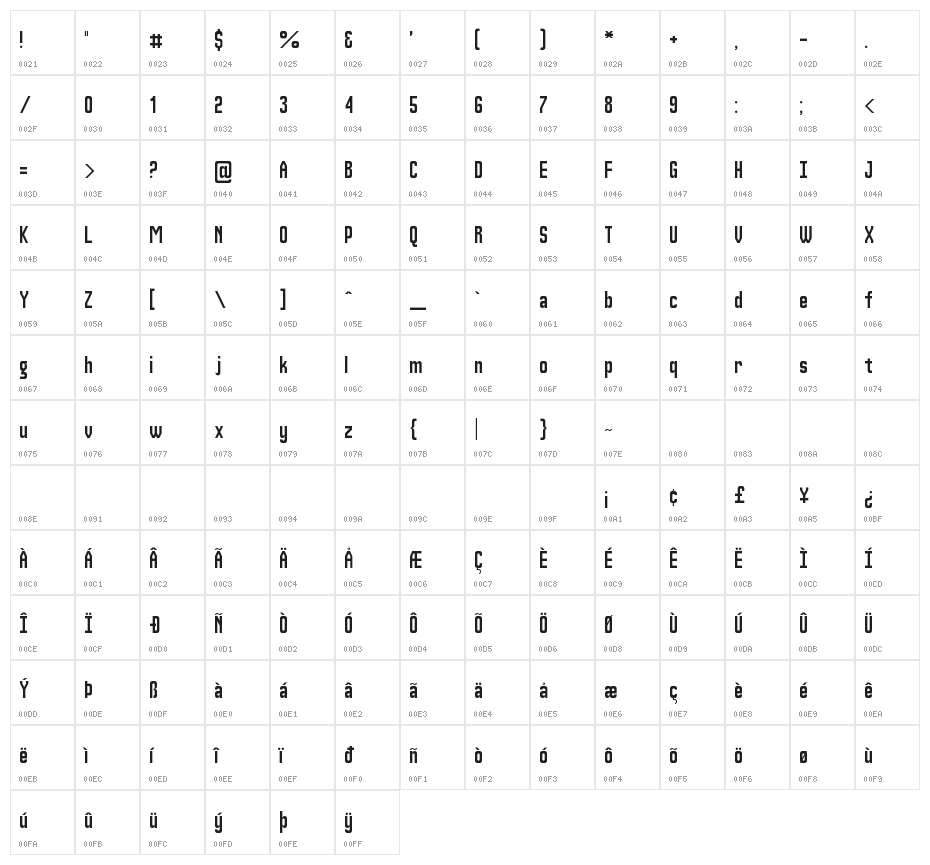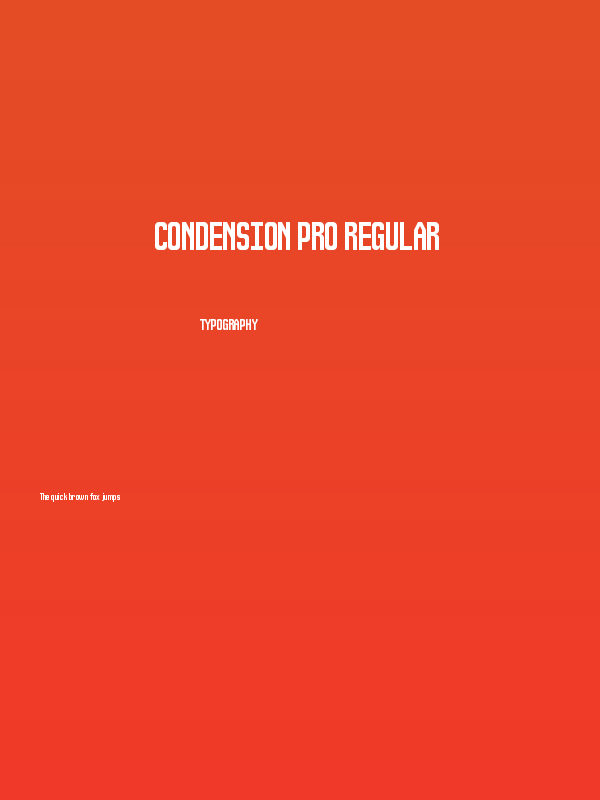
Condension Pro Regular Font
Condension Pro Regular Description
This font features a bold, condensed style with a modern and geometric appearance. The uppercase letters are tall and narrow, providing a strong and impactful look. The lowercase letters maintain the condensed form, ensuring consistency across the typeface. The numerals are also designed to match the overall aesthetic, with a uniform width that complements the letters. Special characters are included, maintaining the same bold and condensed characteristics. The font's clean lines and lack of serifs contribute to its modern and professional feel, making it suitable for various design applications.
| Proposed Projects | Ideal for headlines, posters, branding, and advertising materials where a strong visual impact is desired. |